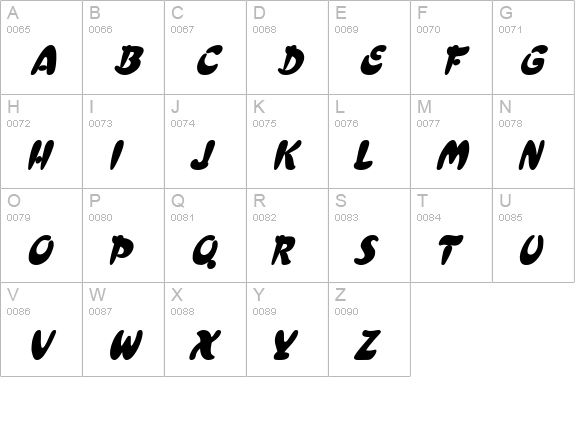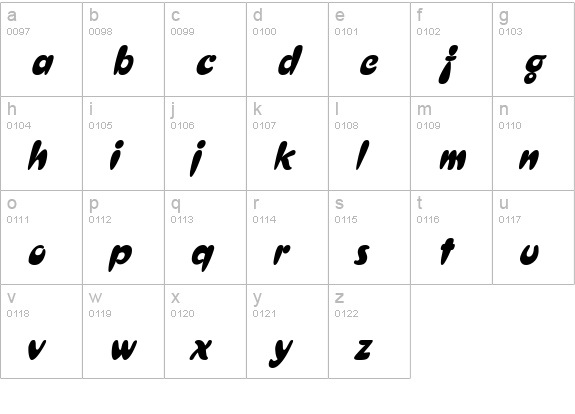
Crest Heavy Italic is a heavy, high-impact, italic variant in the Crest typeface family \xE2\x80\x94 well suited to high-impact headlines, posters, and display advertising.
Crest Heavy Italic font is a bold and stylish typeface that exudes elegance and sophistication. Its heavy weight and slanted design make it perfect for adding a touch of drama and flair to your projects. Whether you're designing a logo, poster, or website, Crest Heavy Italic font will make a statement and leave a lasting impression. The best part is that Crest Heavy Italic font is available for free download at FontsMarket.com. You can easily access this stunning font and enhance your designs with its unique charm. Don't miss out on the opportunity to elevate your typography game with Crest Heavy Italic font - download it today and bring your creative vision to life!